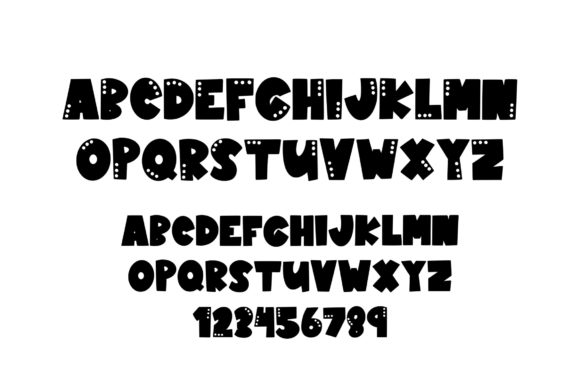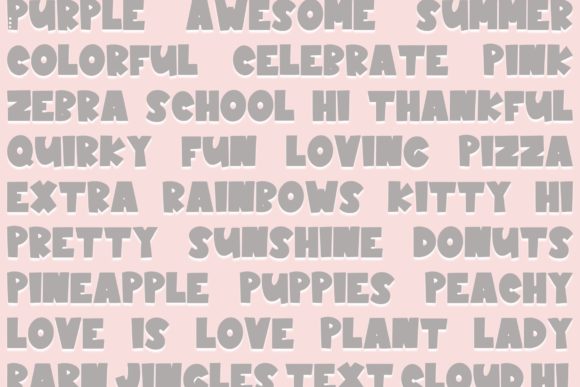
Introduction to Peachy Keen Font
Have you ever been working on a creative project, staring at a blank canvas, trying to find the perfect font to bring your vision to life? We’ve all been there – until we stumbled upon the Peachy Keen Font, that is. This charming handwritten font has a way of making any design feel down-to-earth and approachable, yet still sophisticated and eye-catching.
| 📌 Product Name | Peachy Keen Font |
| 👤 Author | Fairways and Chalkboards |
What makes the Peachy Keen Font truly special is its versatility. Whether you’re working on a project with a busy background or need a standalone headline that pops, this font is sure to deliver. And the best part? It’s a high-quality design resource that’s available for free download, complete with a transparent background for seamless integration into any design.
Key Features of Peachy Keen Font
- High-quality, hand-drawn design perfect for creative projects, offering a unique touch.
- Perfect for use in various design projects, from digital art to print materials, and even web design.
Honest Review: Peachy Keen Font
As a designer, I’m always on the lookout for high-quality fonts that can elevate my creative projects. Recently, I came across the Peachy Keen Font, and I’m excited to share my honest review with you.
The first thing that caught my attention was the beautiful, hand-drawn design of the font. It’s perfect for adding a touch of whimsy and charm to any project. I particularly love using it for children’s books, wedding invitations, and other creative projects where a playful vibe is needed.
- Beautiful, hand-drawn design ✨
- Perfect for creative projects, such as children’s books and wedding invitations ✨
- High-quality design resource ✨
- May not be suitable for formal or professional projects ⚠️
Overall, I’m really impressed with the Peachy Keen Font. While it may have some limitations, its unique design and free availability make it a valuable addition to any designer’s toolkit. I’d definitely recommend it to anyone looking for a fun and creative font to use in their projects.
Getting the Most Out of Peachy Keen Font
To get the most out of the Peachy Keen Font, use it with a transparent background to create a high-quality design resource. This font is ideal for creative projects that require a unique and eye-catching font. Experiment with different font sizes, colors, and alignments to find the perfect look for your design.
The Peachy Keen Font is commonly used in digital design projects, such as social media graphics, blog posts, and infographics. It’s also a great resource for designers who want to add a touch of whimsy and playfulness to their designs.
Unlike Peachy Keen Font, Great Vibes Font has a more relaxed and casual appearance, making it suitable for casual events and everyday designs. It’s available for free download with a transparent background, making it a great design resource for creative projects.
What is the recommended usage for the Peachy Keen Font?
The Peachy Keen Font is designed to be used in a variety of creative projects, including branding, packaging, and advertising. It is a high-quality design resource that can add a touch of elegance and sophistication to your designs. However, please note that the font may have usage restrictions, so be sure to check the license agreement before using it in your project.